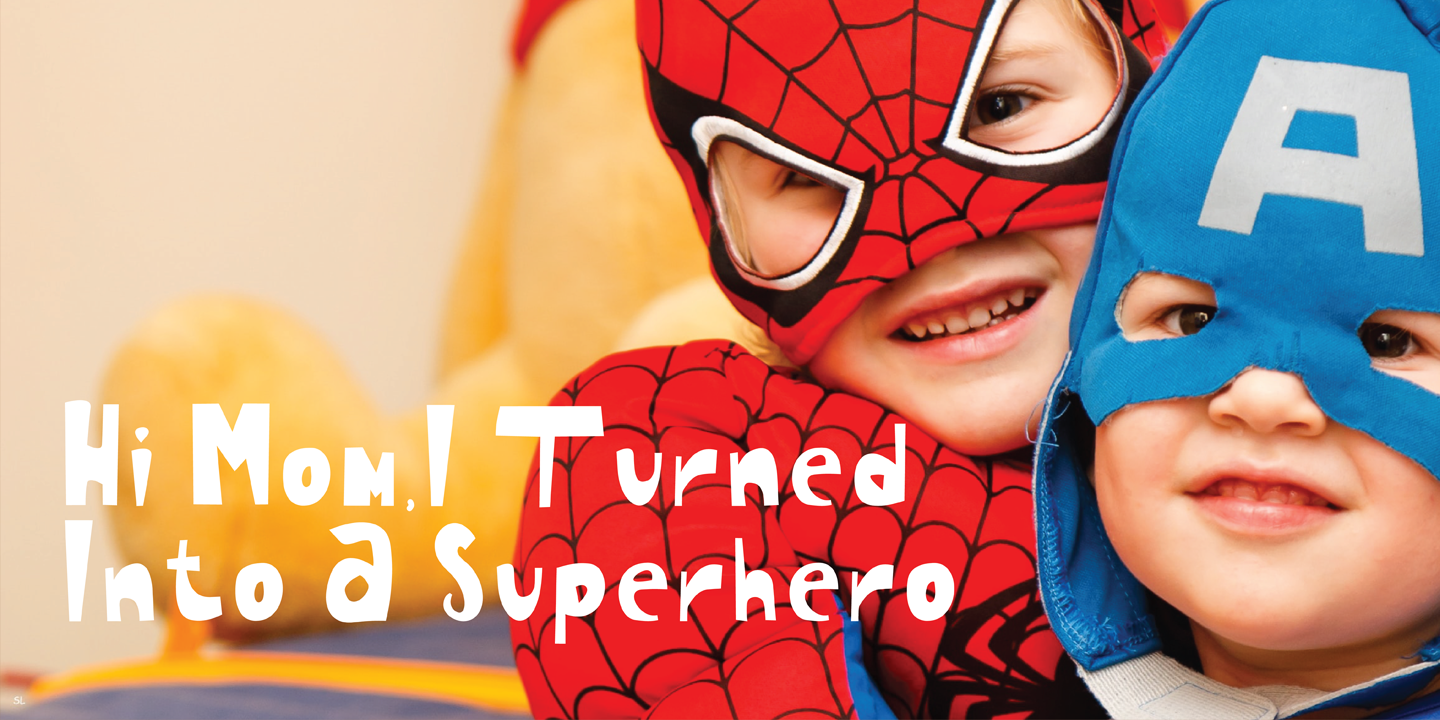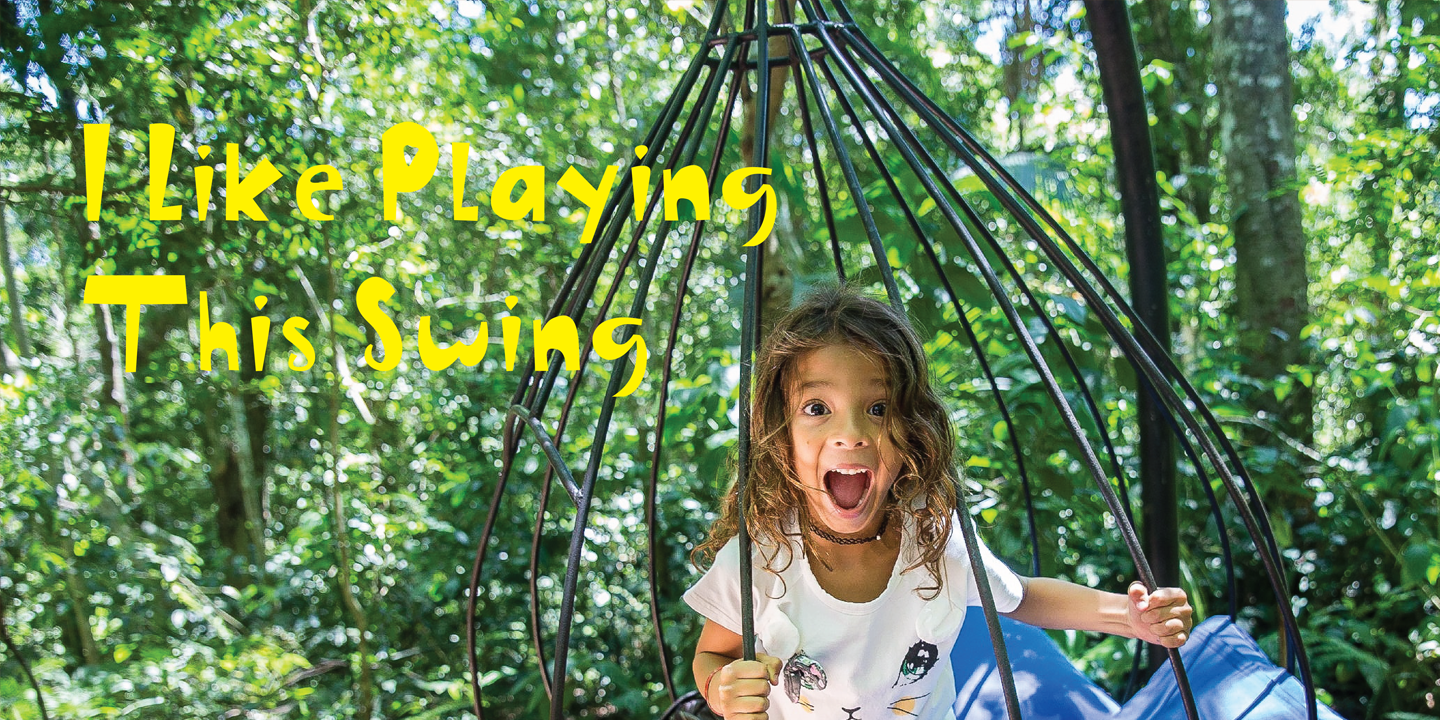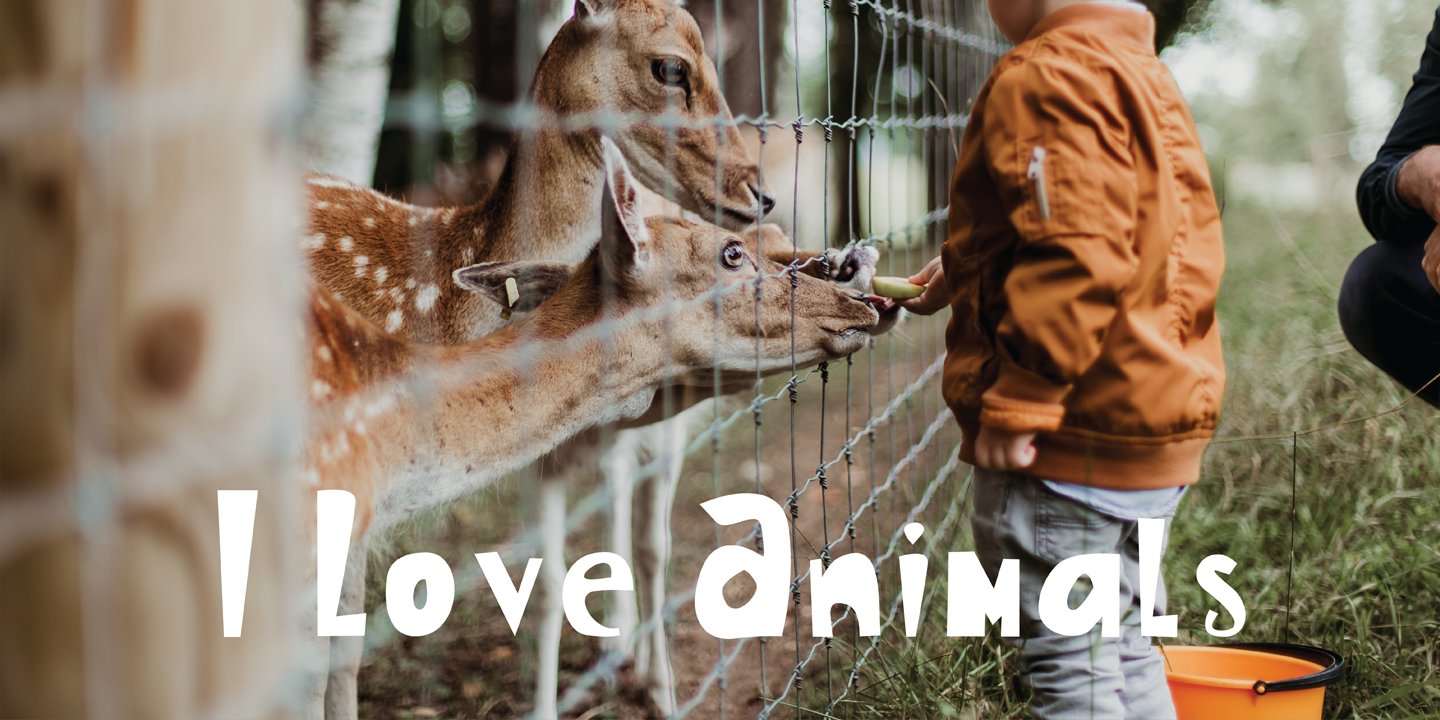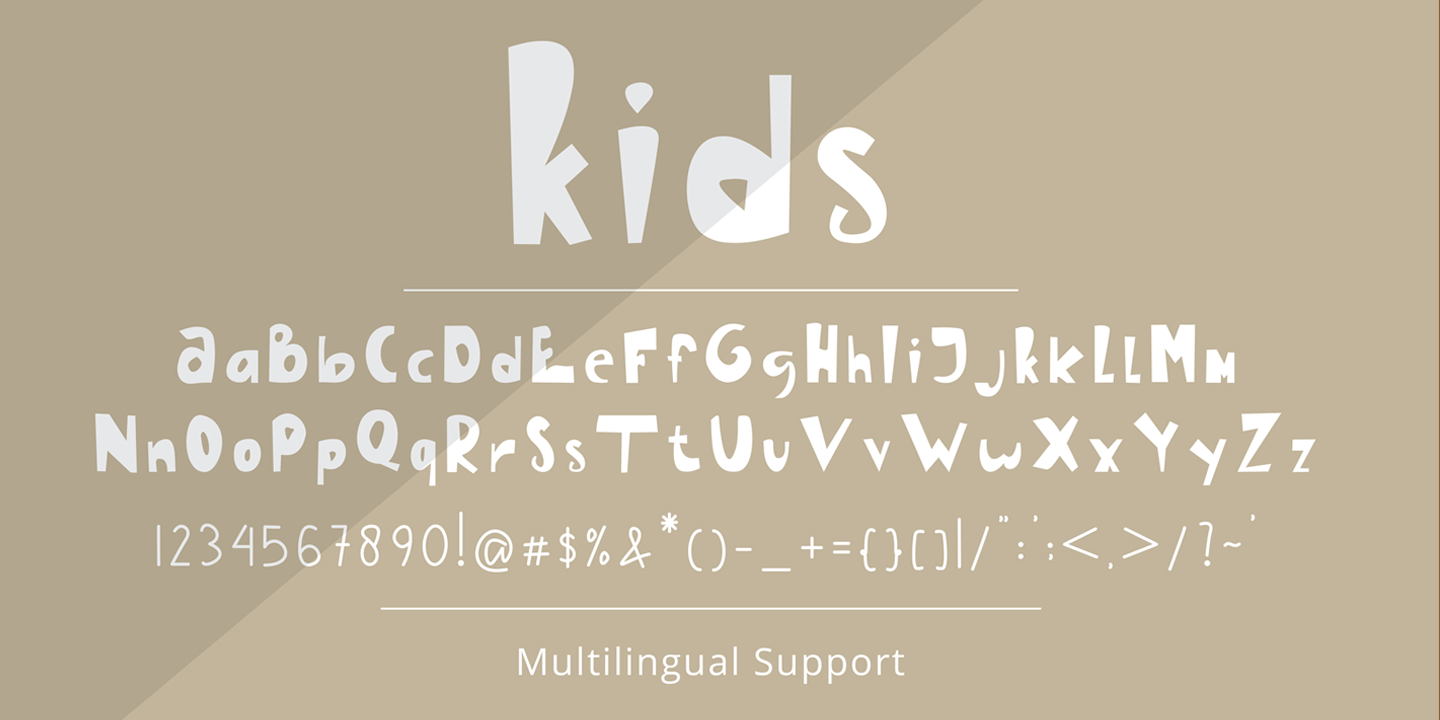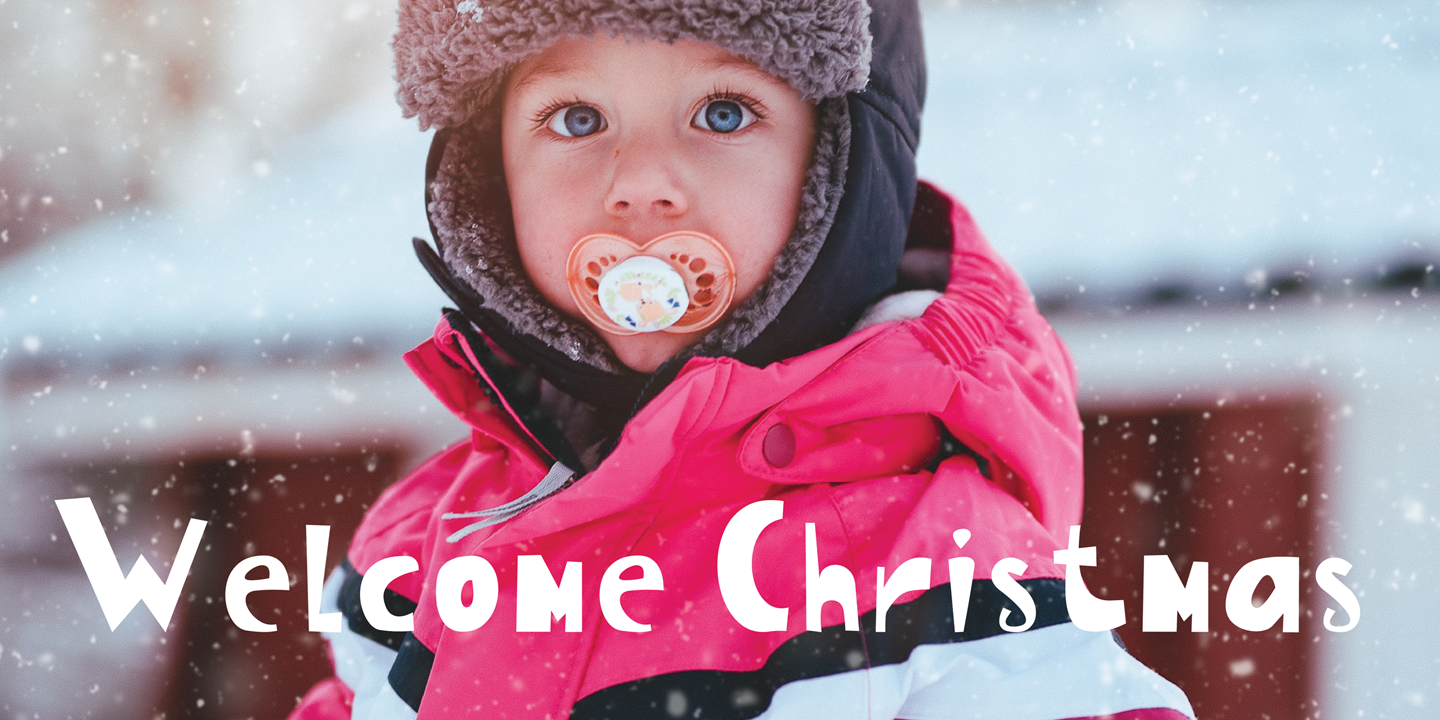
Kids is inspired by the writing style of a child who is learning to write letters and numbers. This font can be used for a variety of needs including logos, flyers, magazines, clothes, business cards brochures and more. It includes multi-lingual support.